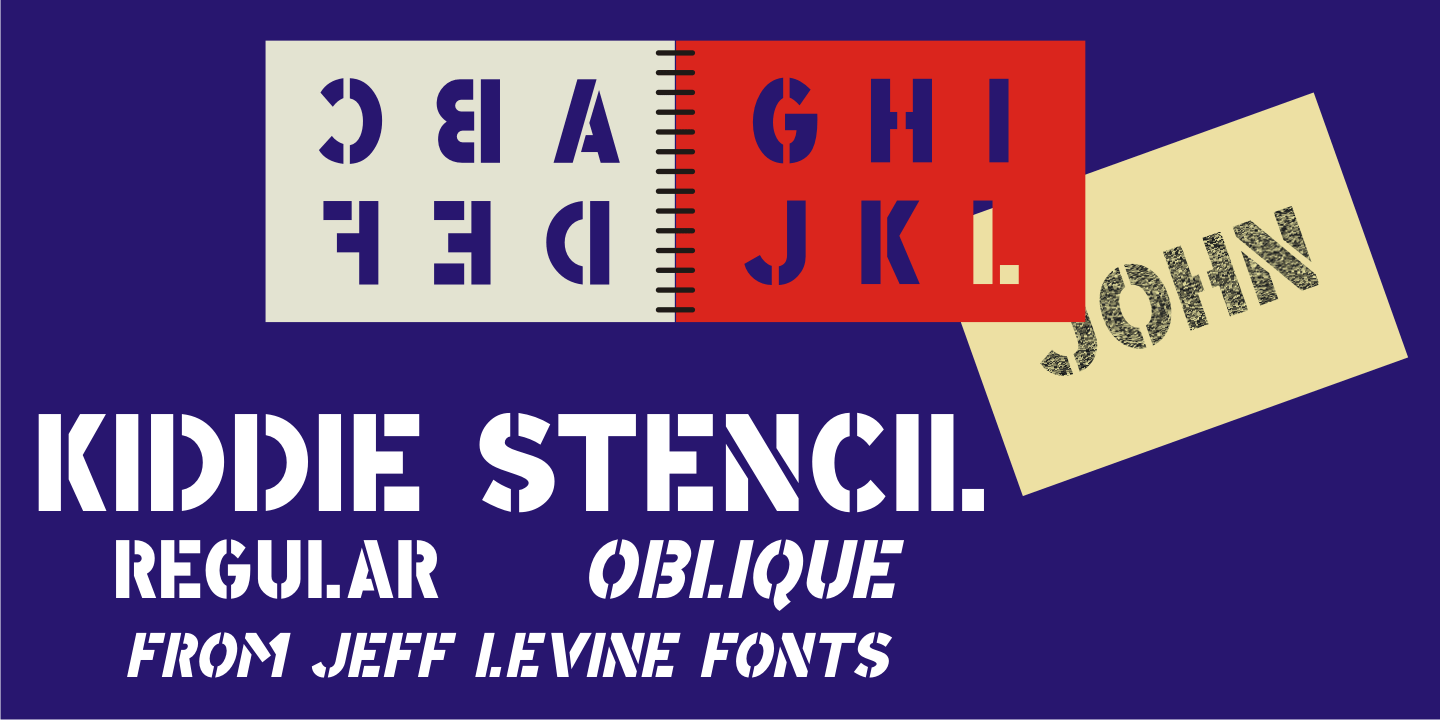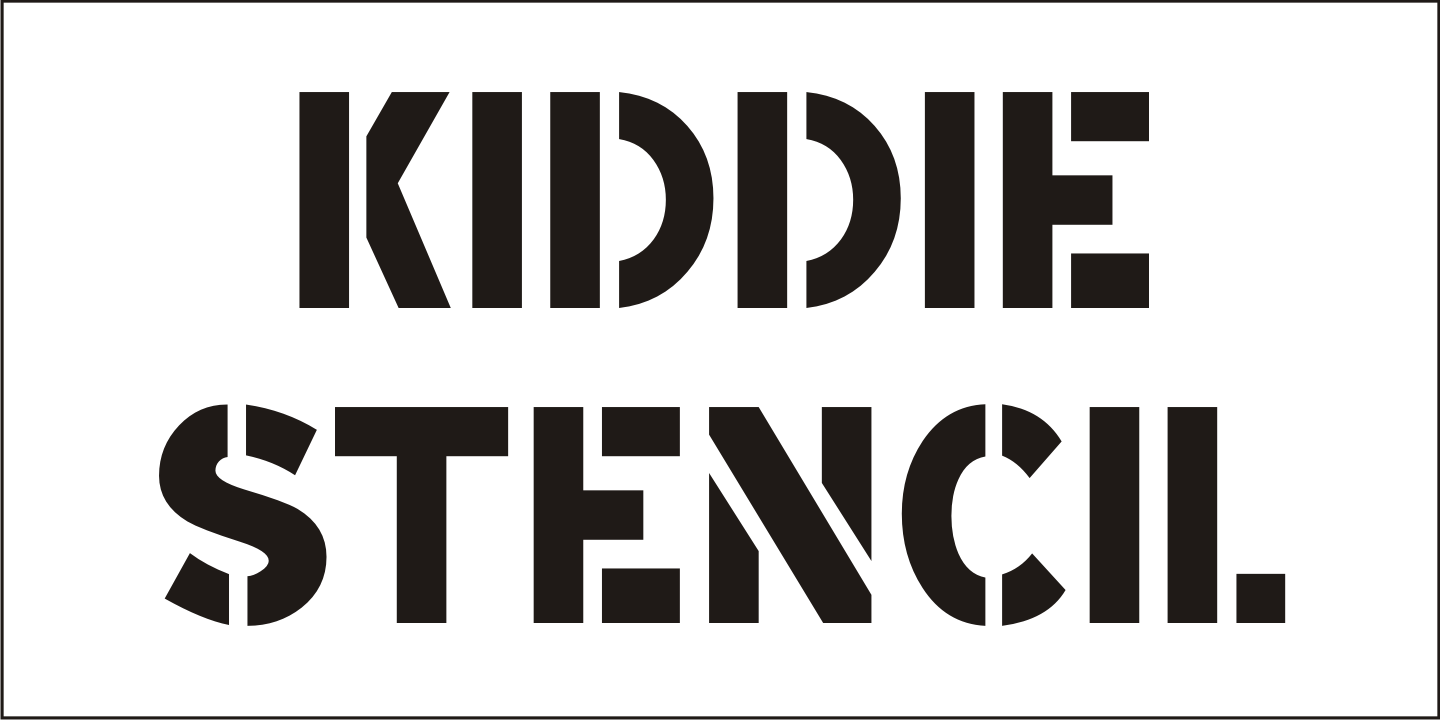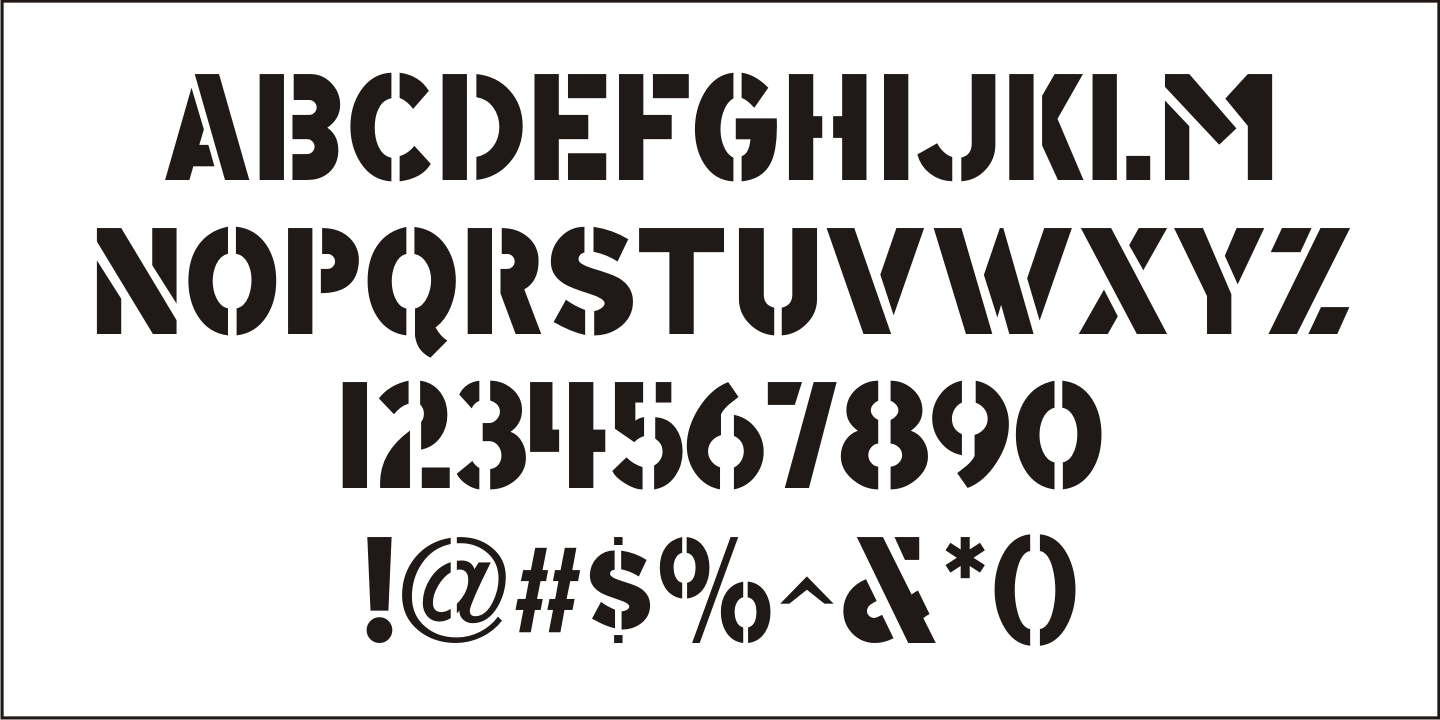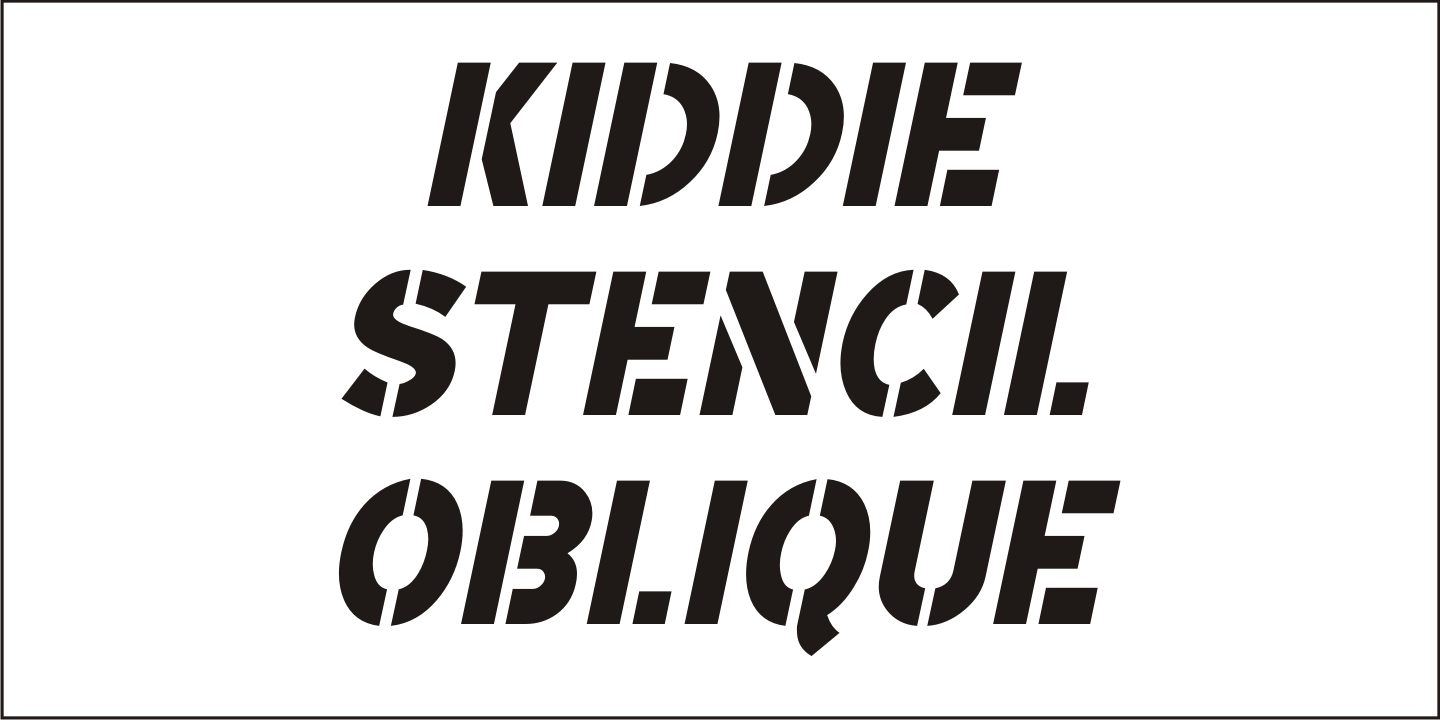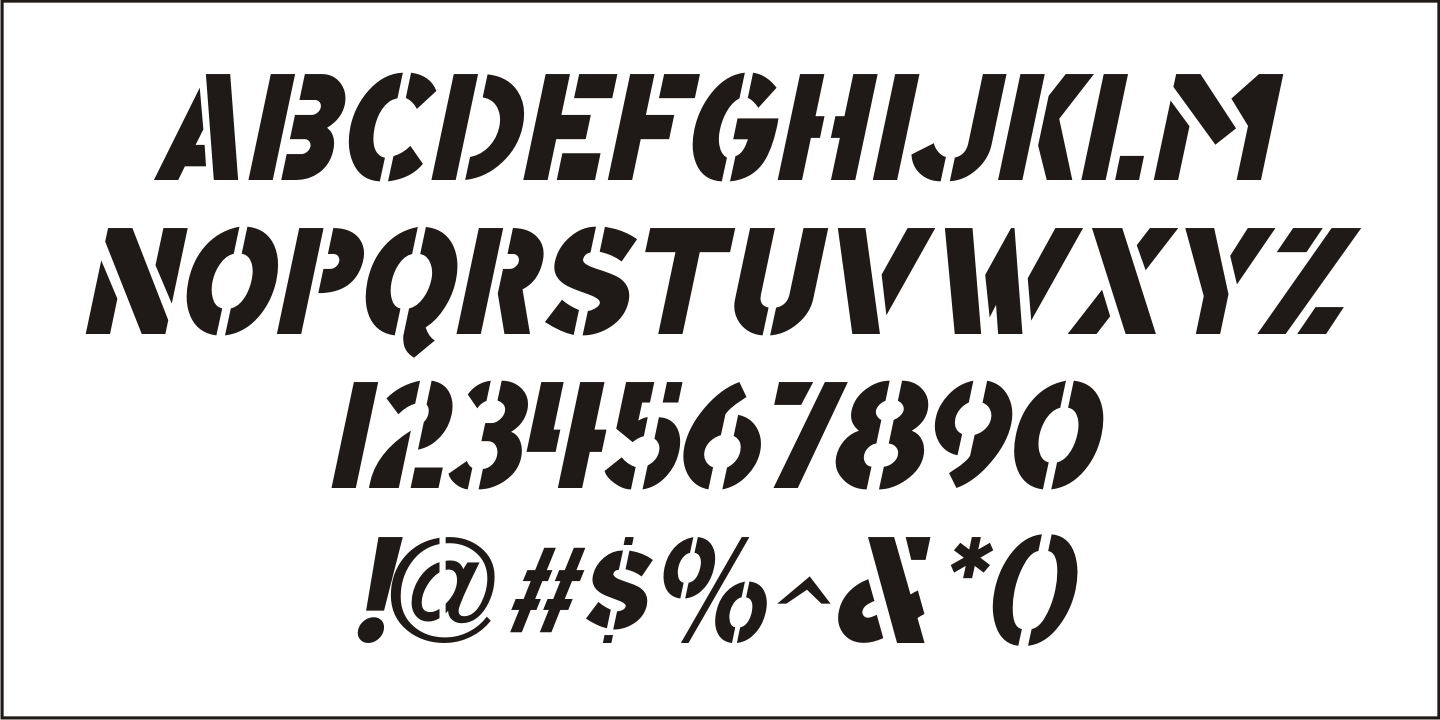
Kiddie Stencil
At one time, the Hampton Publishing Company of New York specialized in producing reading and activity books for children.
The 'Letters and Numbers Stencil Book” (probably from the late 1940s or early 1950s) was the basis for Kiddie Stencil JNL.
This bold sans serif type style replicates the handmade steel rule dies used for cutting the stencil pages of the book, and is available in both regular and oblique versions.